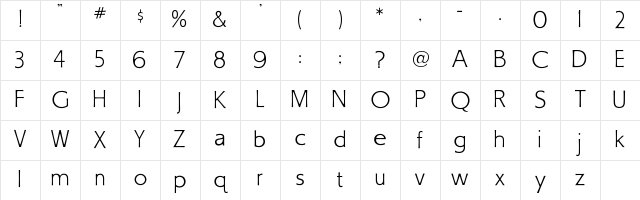
A&S Sign Gothic Regular
Foundry: SIGNFONTS-Art&Sign
Designer: Steve Contreras
Design Context for A&S Sign Gothic
A&S Sign Gothic takes a clean, functional approach - its unadorned letterforms prioritise legibility and work reliably across screen and print environments.
Font Pairing: Works well alongside a characterful serif or display font that can carry the expressive load while A&S Sign Gothic handles the functional copy.
Pro Tip: Use A&S Sign Gothic for UI labels, navigation, and short-form body copy where clean legibility is the priority.